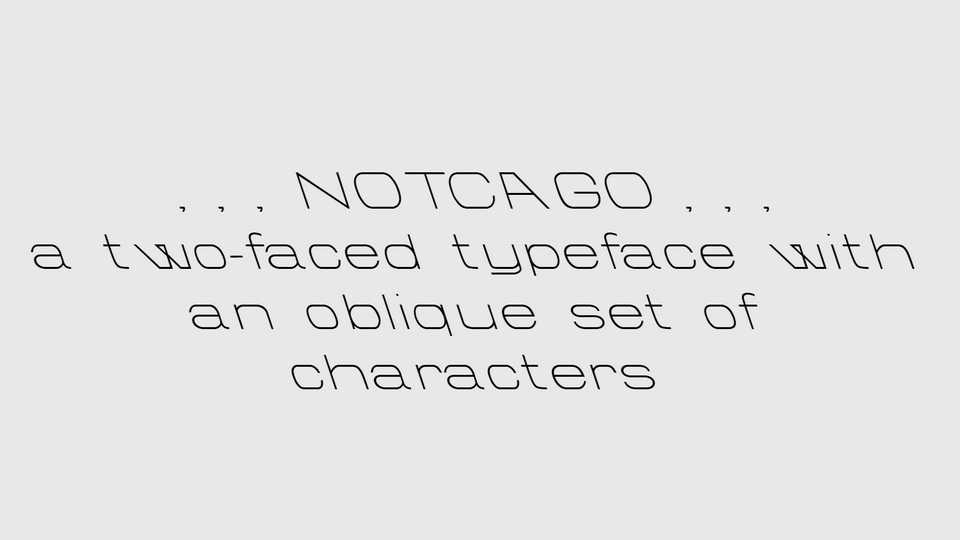
Download Notcago font, a two–faced sans serif typeface with an oblique set of characters, a digitized and restored version of expired typeface patent. Originally designed as Octagon by William F. Capitain for Marder Patent #D0016105 dated May 26, 1885.
Designer: Jodie Wijermars